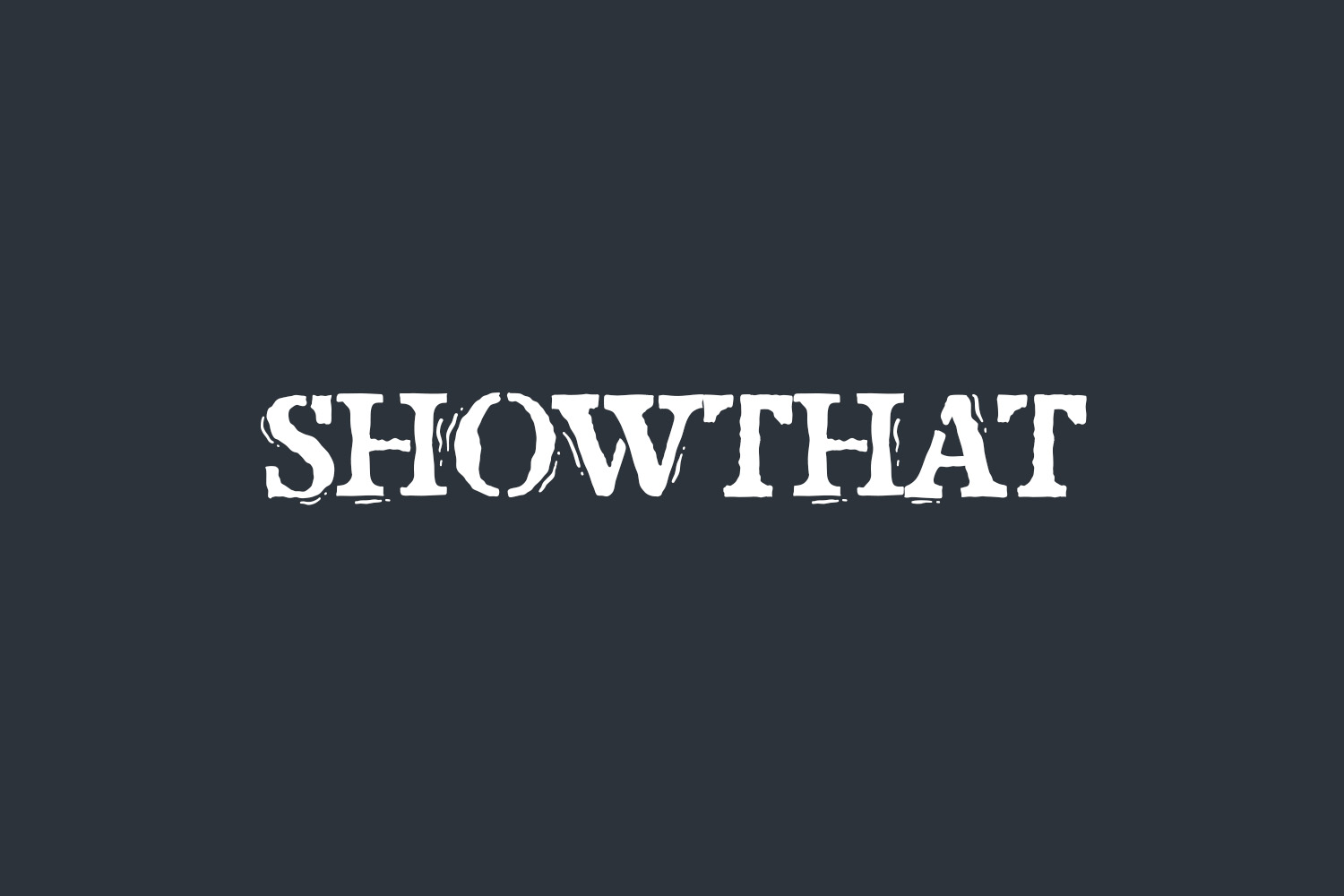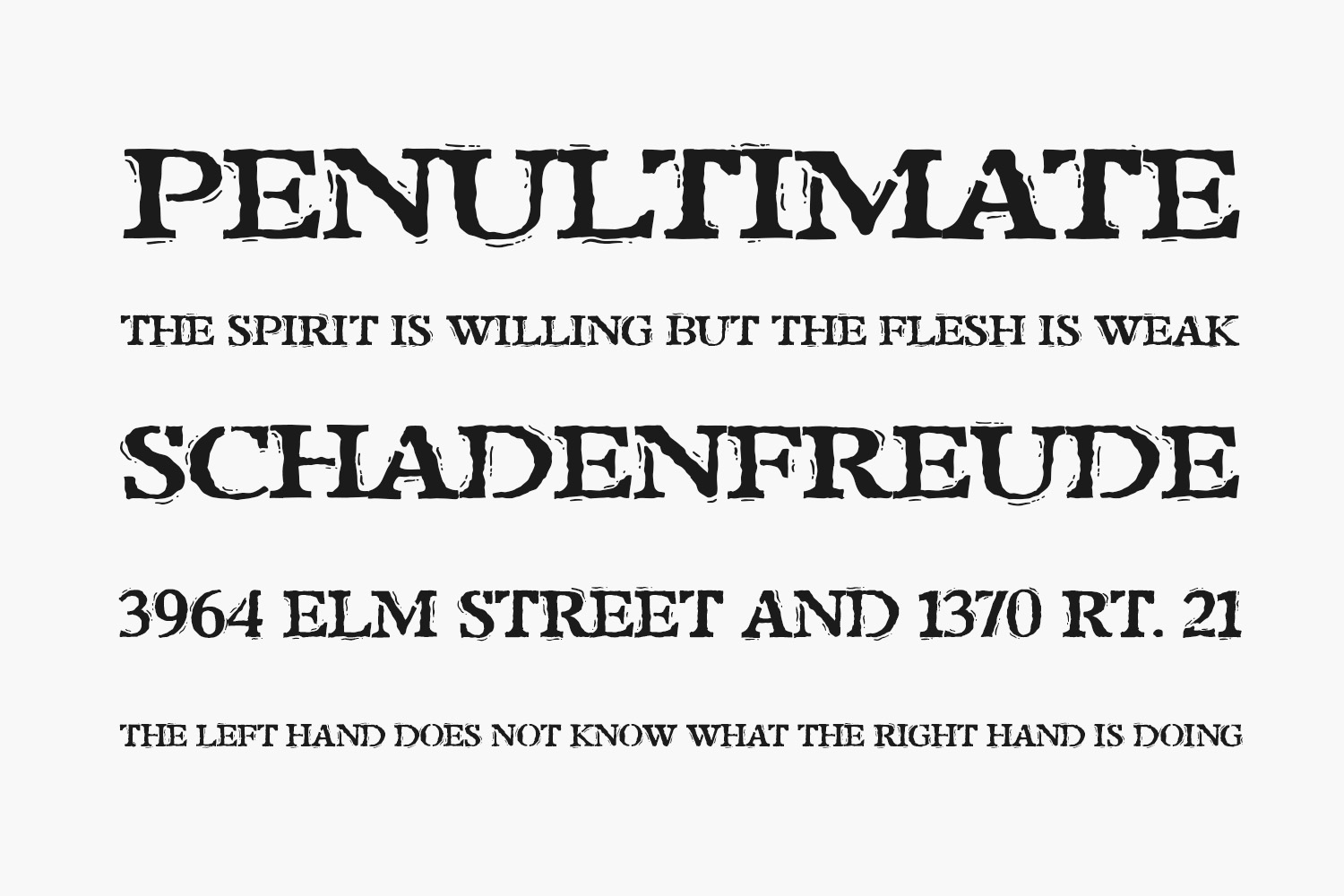
Showthat Free Font is a modern serif font perfect for posters, logos, magazines, book covers, banners, and many more. Get this amazing font, and use it to create lovely designs. Showthat Free Font was designed by Letterhend Studio and is free for personal or commercial use.